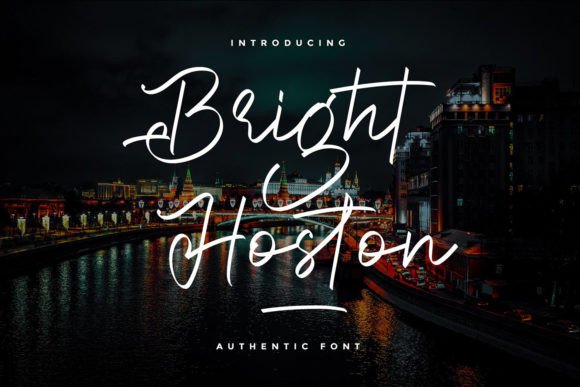
The Designer’s Delight: Bright Hoston Font
I’ll never forget the moment I stumbled upon the Bright Hoston font. I was working on a project for a client who wanted an elegant and timeless design, but I was struggling to find the right font to bring their vision to life. That’s when I discovered Bright Hoston, a flowing handwritten font that instantly captured my heart. Its incredibly distinct style and elegant touch made it the perfect fit for my project, and I knew I had to share it with the world.
So, what makes Bright Hoston so special? Let’s dive into the good stuff and a few quirks I’ve discovered along the way.
- ✨ Elegant and flowing script that’s perfect for creating sophisticated designs
- 💫 Beautifully crafted to add a touch of luxury to any project
- 🎨 Versatile and works well for a variety of design applications, from branding to invitations
While Bright Hoston is an amazing font, there are a few things to keep in mind:
- ⚠️ Some of the more intricate swashes and flourishes might not display properly on all devices or platforms
- 🤔 It can be a bit overused, so be mindful of how you use it to avoid clichés
The Designer Inspiration Behind Bright Hoston
Bright Hoston was designed with the intention of creating a font that exudes elegance and sophistication. The designer aimed to craft a font that would be perfect for a variety of design applications, from luxury branding to wedding invitations. With its beautiful swashes and flourishes, Bright Hoston is sure to add a touch of luxury to any project.
Q: What is Bright Hoston font?
A: Bright Hoston is a flowing handwritten font with an elegant touch, perfect for creating sophisticated designs.
Q: Is Bright Hoston suitable for body text?
A: While Bright Hoston is highly legible, it’s best suited for headlines and titles. For body text, a more traditional font might be more suitable.
Q: Does Bright Hoston support OpenType features?
A: Yes, Bright Hoston supports OpenType features, including swashes, stylistic alternates, and glyphs.